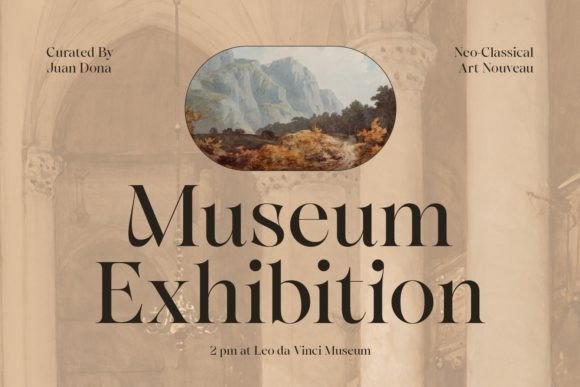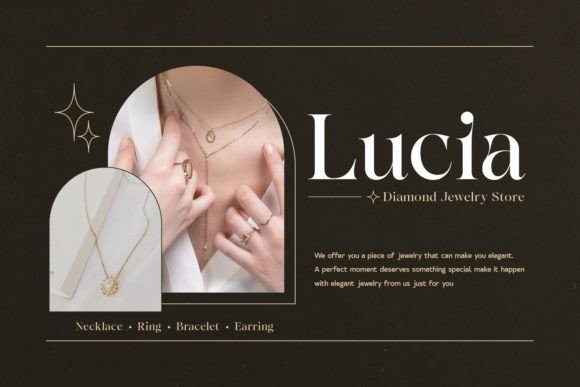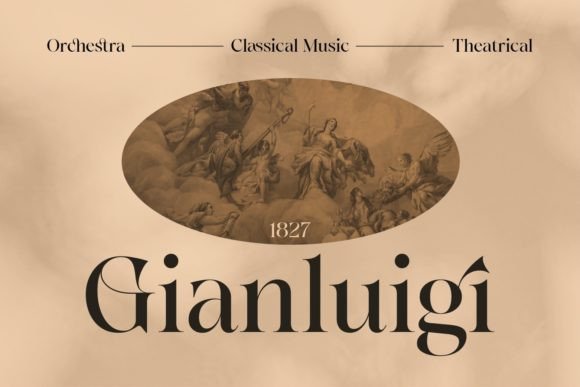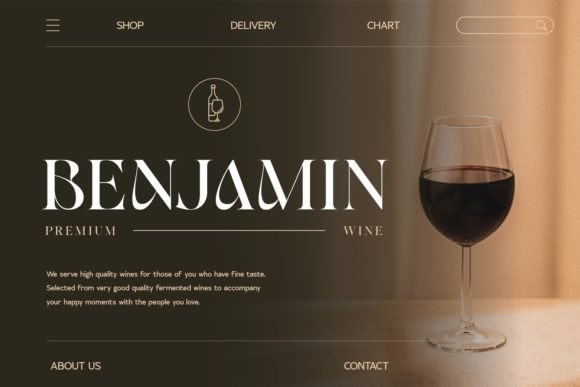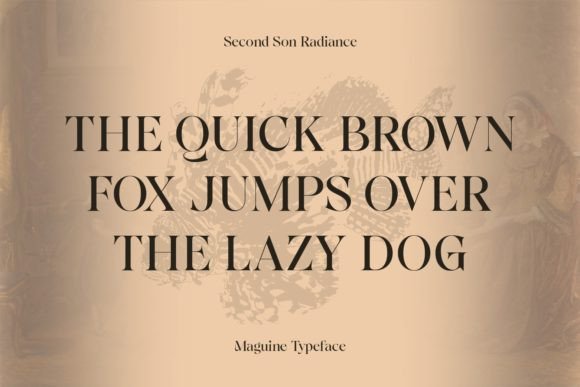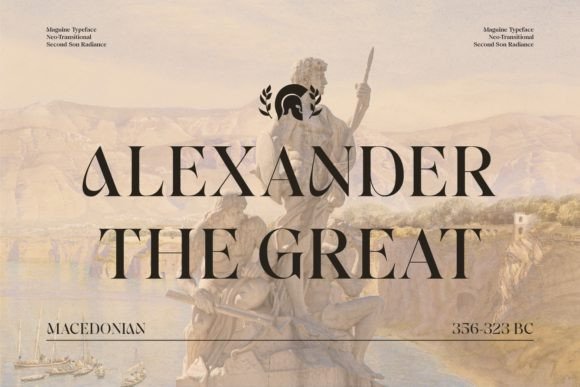
Maguine Font Font – Free Download
Introduction to Maguine Font Font
Fonts play a crucial role in design, and the Maguine Font font is a typeface that brings both character and versatility to any project. Whether you’re working on a branding project, a website, or a print design, the Maguine Font font offers a unique style that can elevate your work.
Maguine is a stylish and modern serif font with a touch of elegance and charm.
Perfect for editorial projects, logo design, clothing branding, product packaging, magazine headers, or simply as a stylish text overlay to any background image .
Key Features of Maguine Font Font
Why Choose Maguine Font Font?
The Maguine Font font is more than just a typeface – it’s a design tool that helps you communicate your message with style and clarity. Its unique character set and versatile design make it suitable for a wide range of applications, from elegant invitations to bold headlines.
With its carefully crafted letterforms and balanced proportions, the Maguine Font font ensures readability and visual appeal across all mediums.
What makes Maguine Font font special?
The Maguine Font font stands out with its unique design, exceptional readability, and versatility across various design applications.